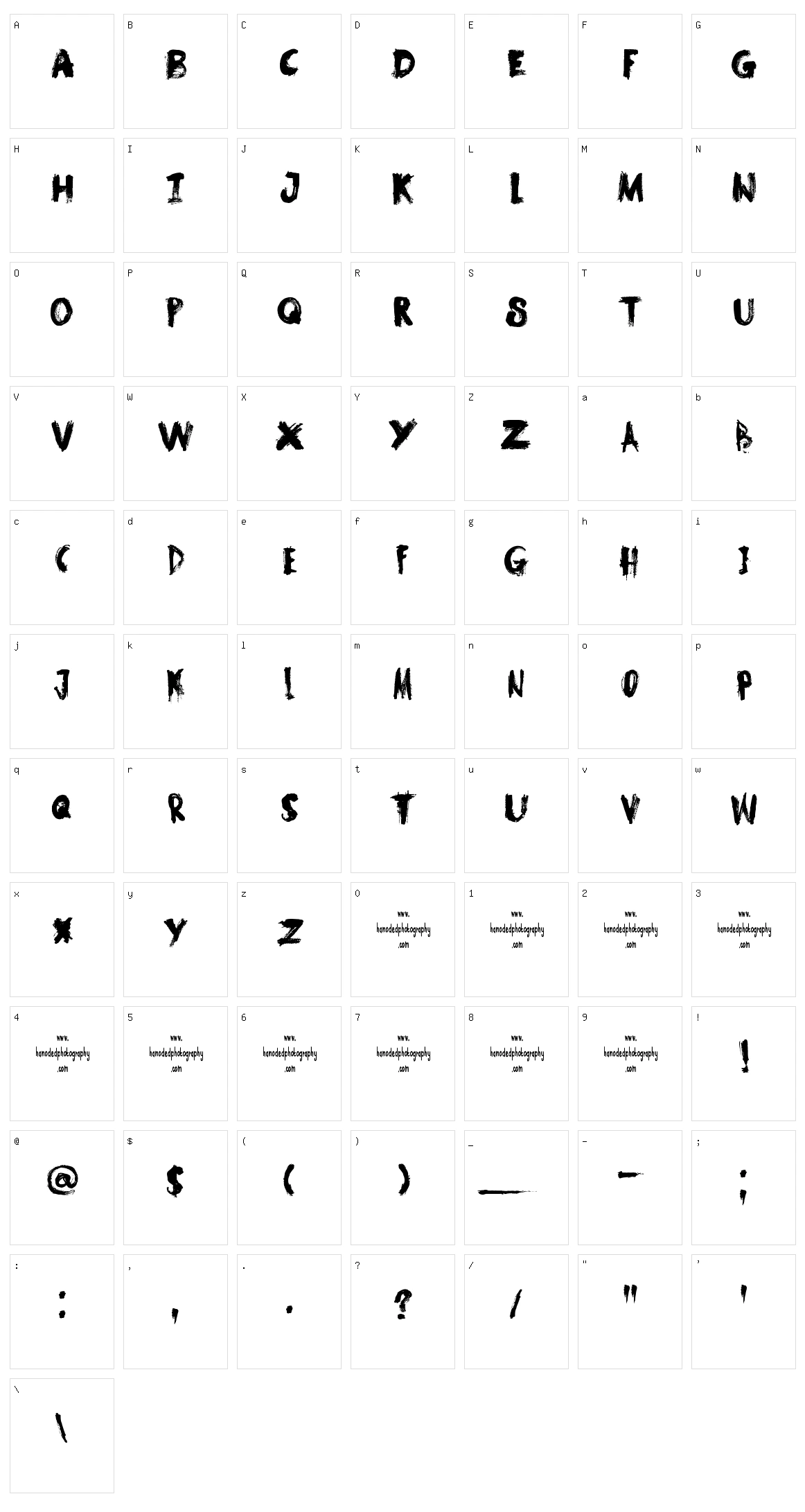
The free font DK Samhain is carefully designed by Hanoded, showcasing a thoughtful balance of creativity and usability and falls under the Horror font style. When you download the ZIP file, it contains only 680.25 KB of font files, making it lightweight and quick to download. Please review the license details below to understand permitted usage and distribution rights. If license information is not available, we recommend using this font for personal projects only or contacting the author directly for commercial usage permissions.